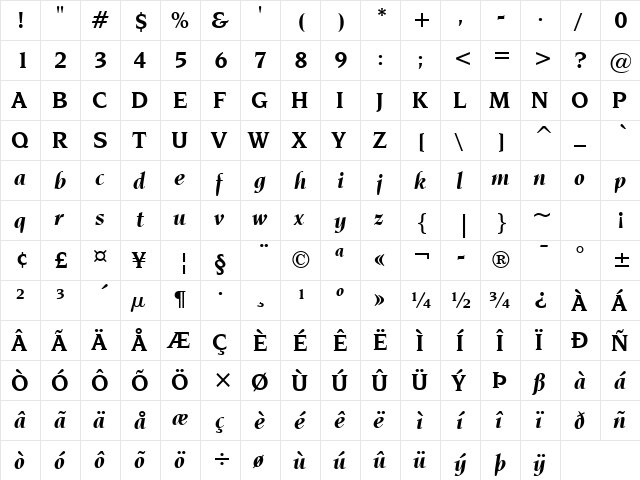
Novarese Bk BT Bold Italic
Design Context for Novarese Bk BT Typeface
Novarese Bk BT offers clean, dependable letterforms without strong stylistic allegiance, making it a practical choice for designers who need flexibility. Its italic angle brings a sense of urgency and motion to the letterforms. Its bold stroke weight gives it real presence on the page.